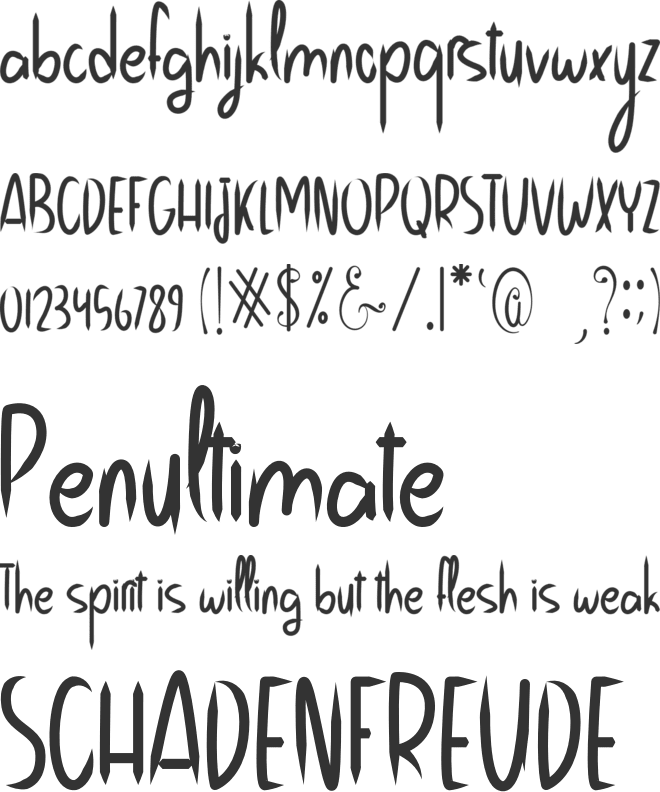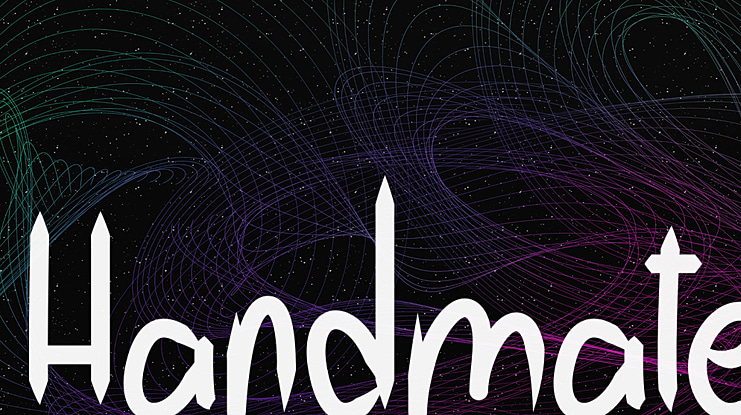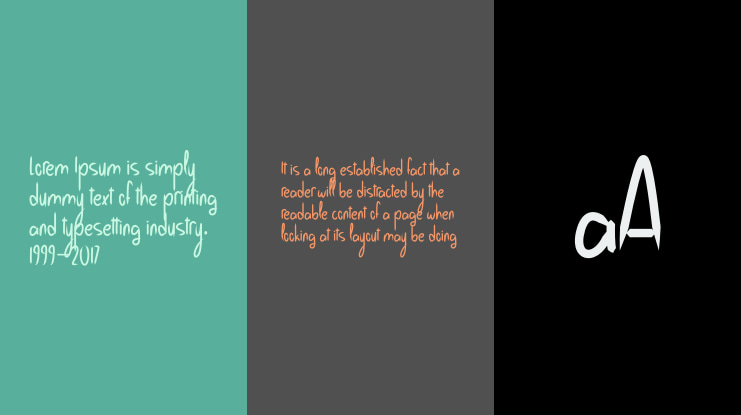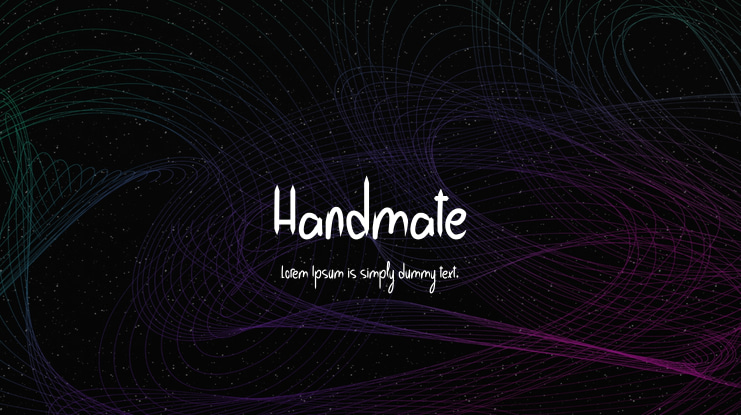
Handmate Font
Handmade is a unique and beautiful handwritten font. It looks beautiful on a variety of designs requiring a personalized style. Every letter has a unique and beautiful touch, which will make your design come alive!